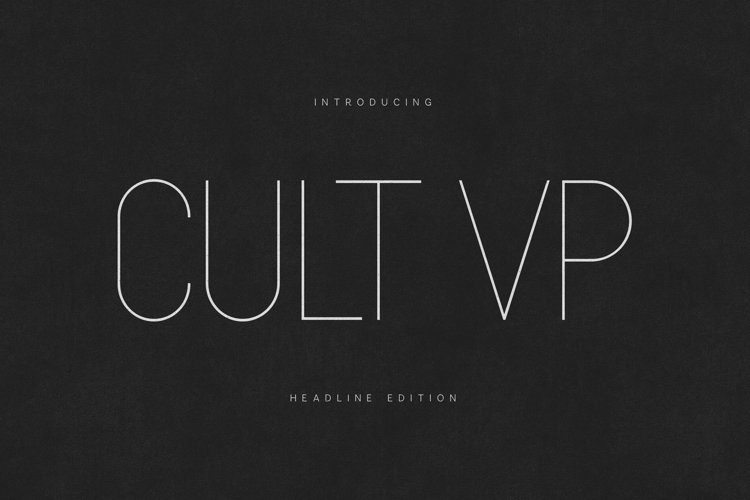
Cult VP Modern Minimal Headline Sans Serif Font
Cult VP – Headline Edition is a refined ultra-minimal sans serif typeface designed for modern branding, clean editorial layouts, and striking headlines.
The typeface features extremely thin strokes, elegant geometric construction, and a contemporary minimalist aesthetic that works beautifully in high-end design environments. Its light structure creates a sophisticated visual rhythm that feels calm, modern, and futuristic.
Cult VP is particularly suitable for luxury branding, editorial design, fashion campaigns, minimalist posters, logo design, and modern websites. The balanced proportions and subtle curves allow the font to maintain clarity while delivering a distinctive visual personality.
This font works especially well in large display sizes where its elegant thin lines and spacious letterforms create a refined typographic presence.